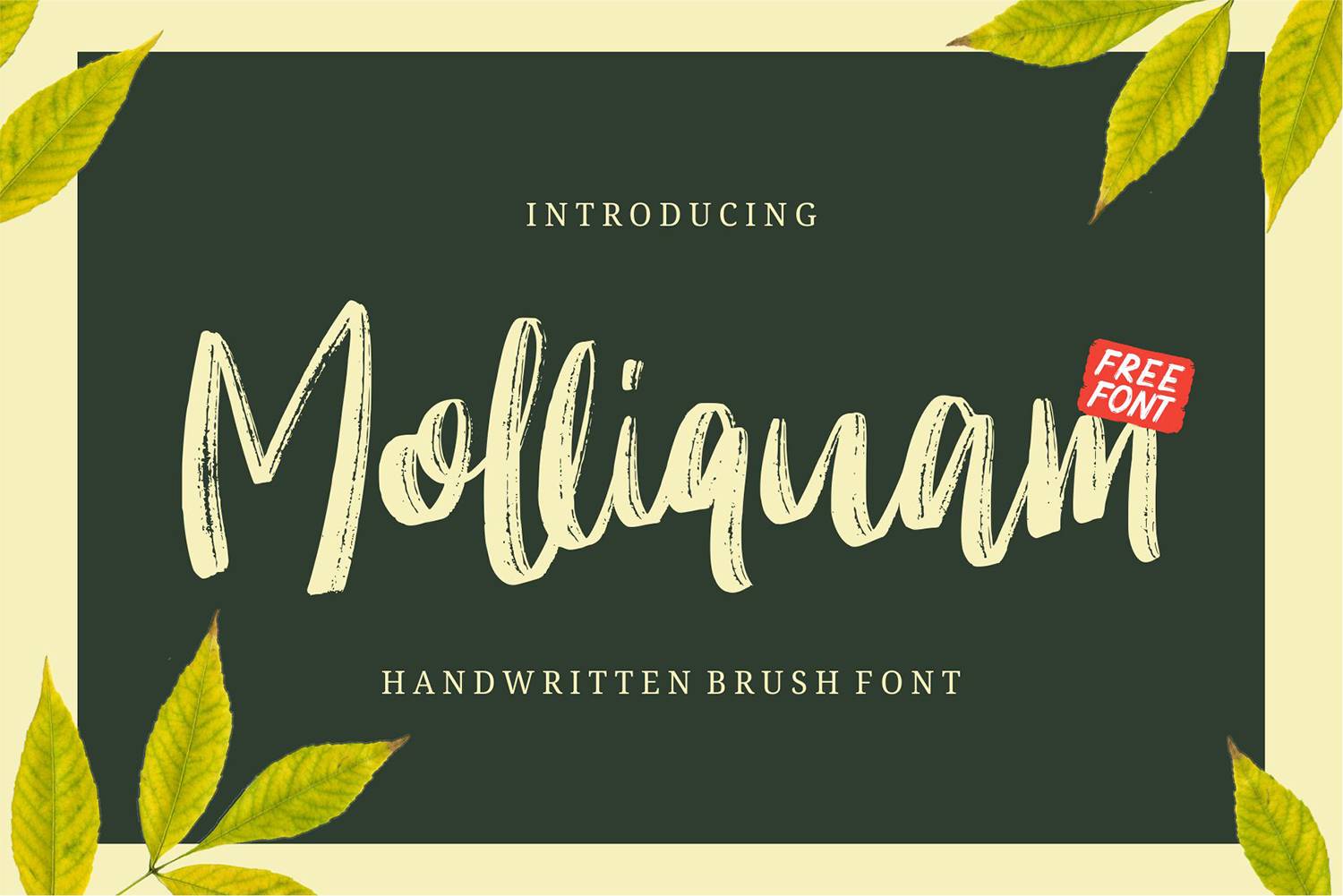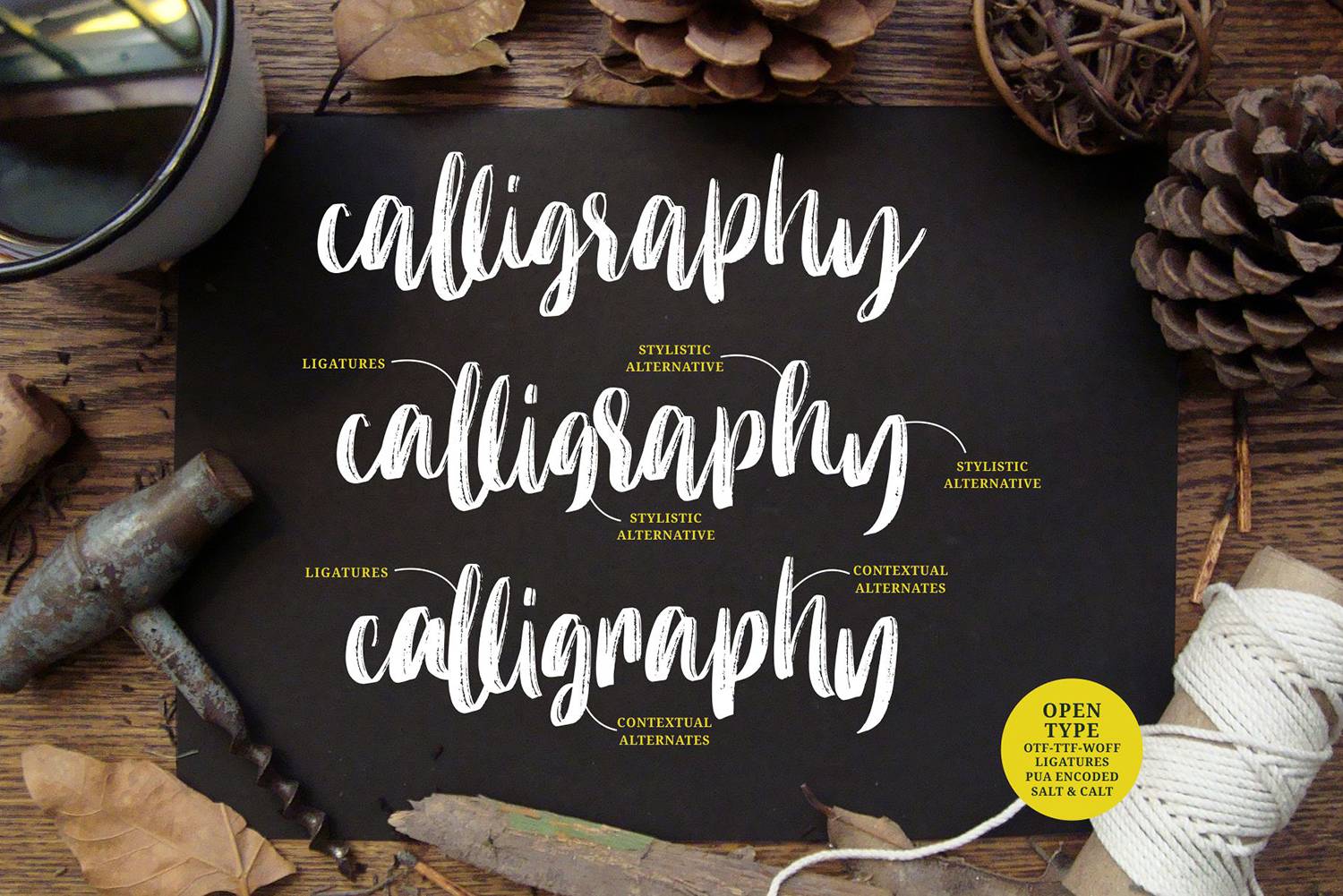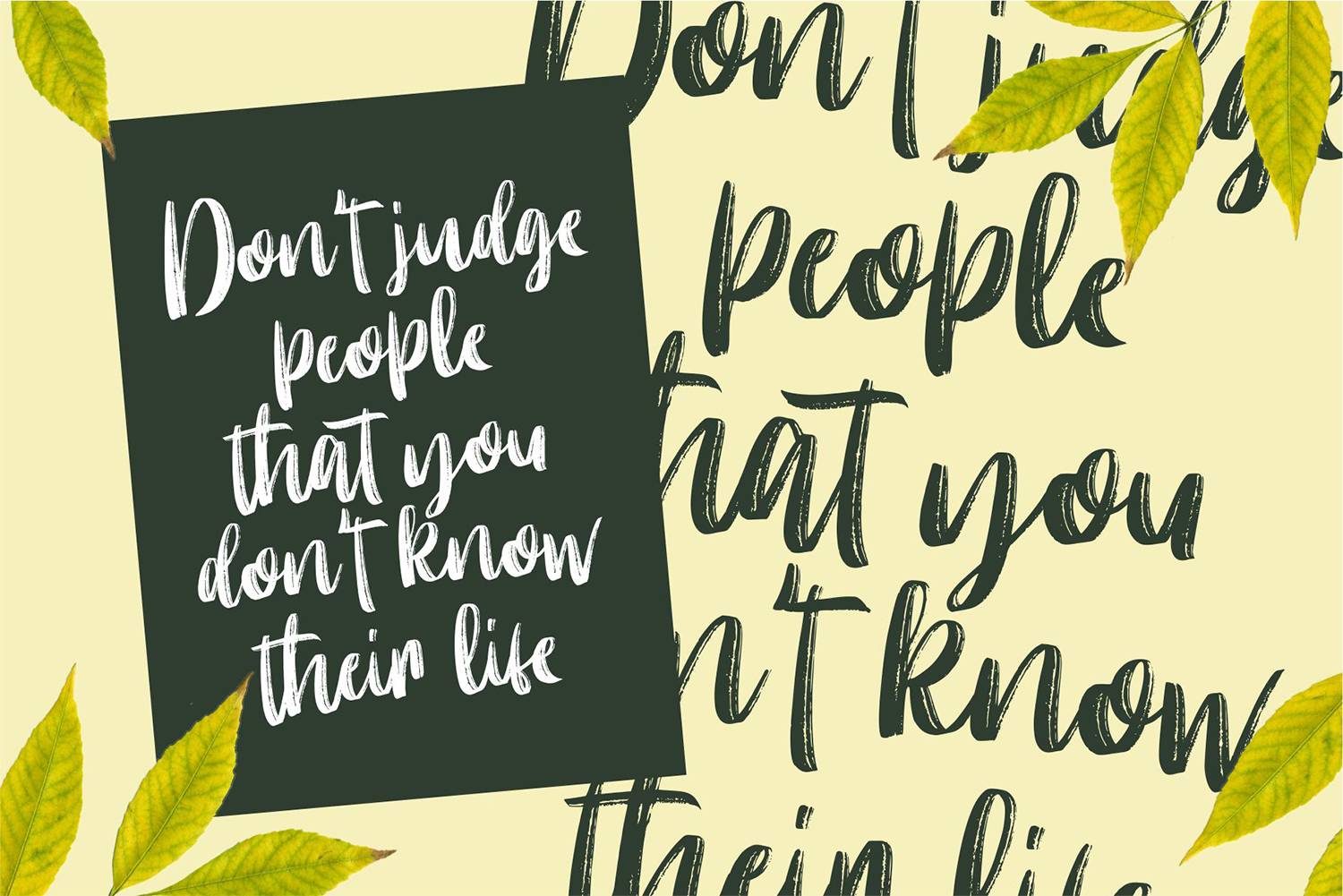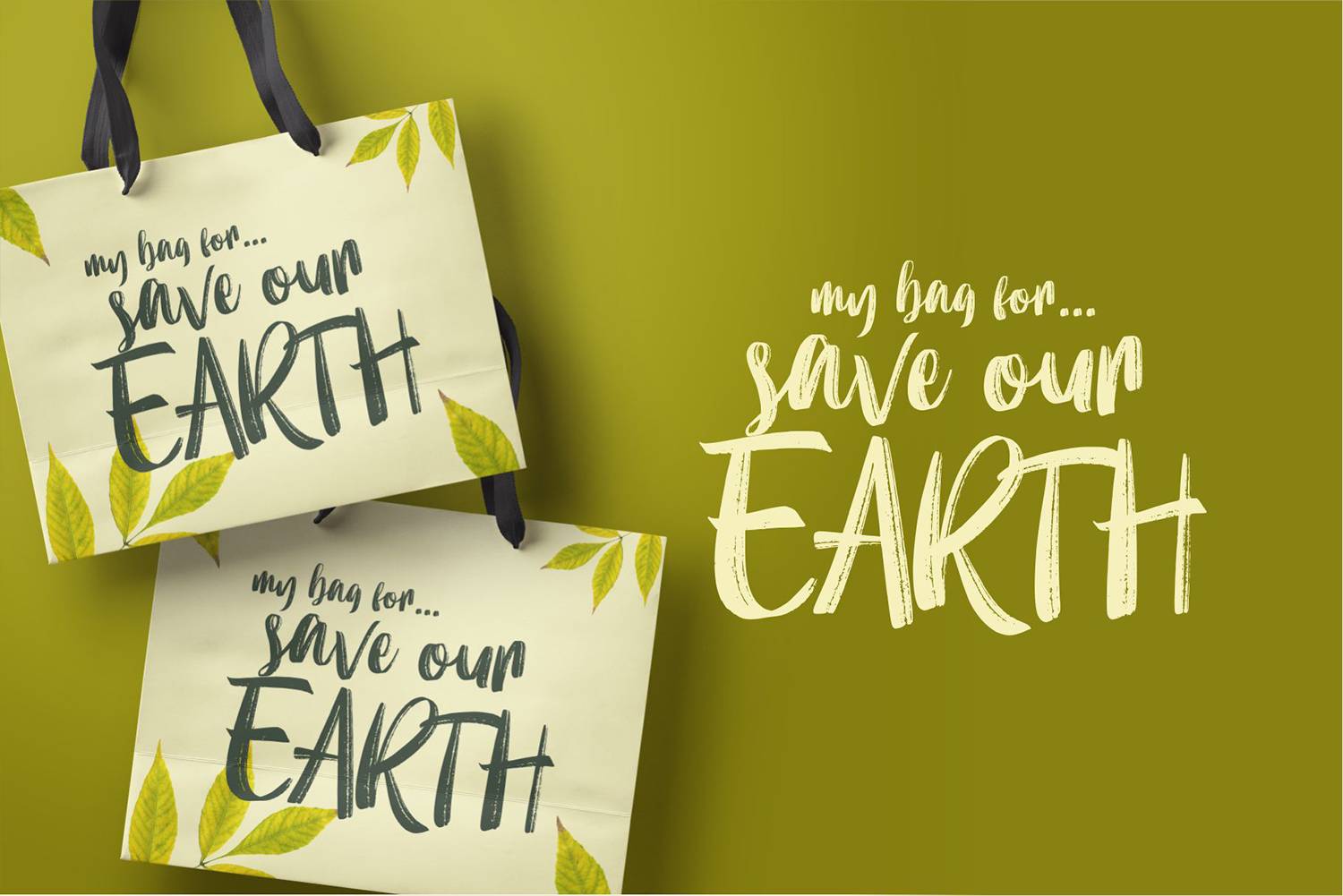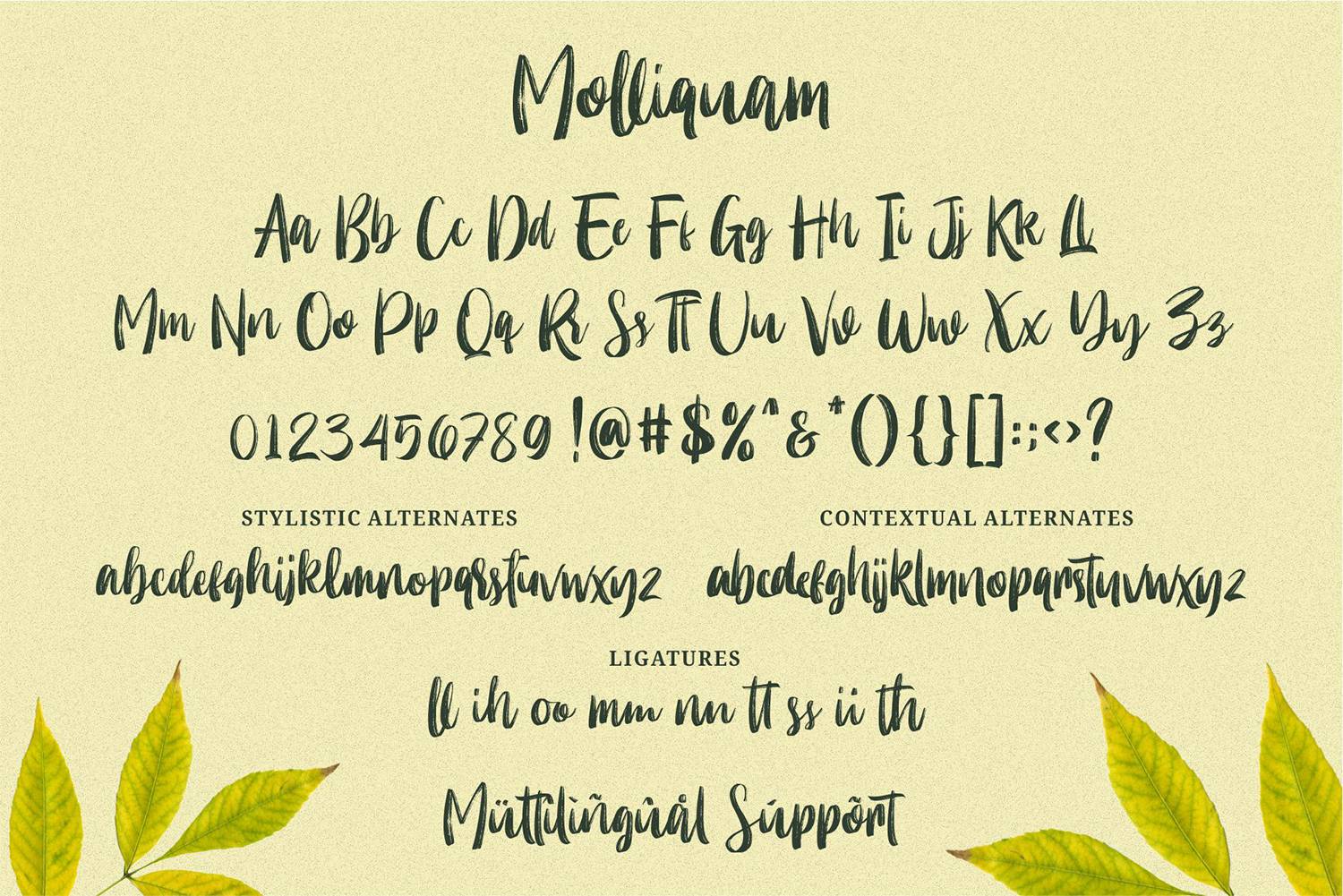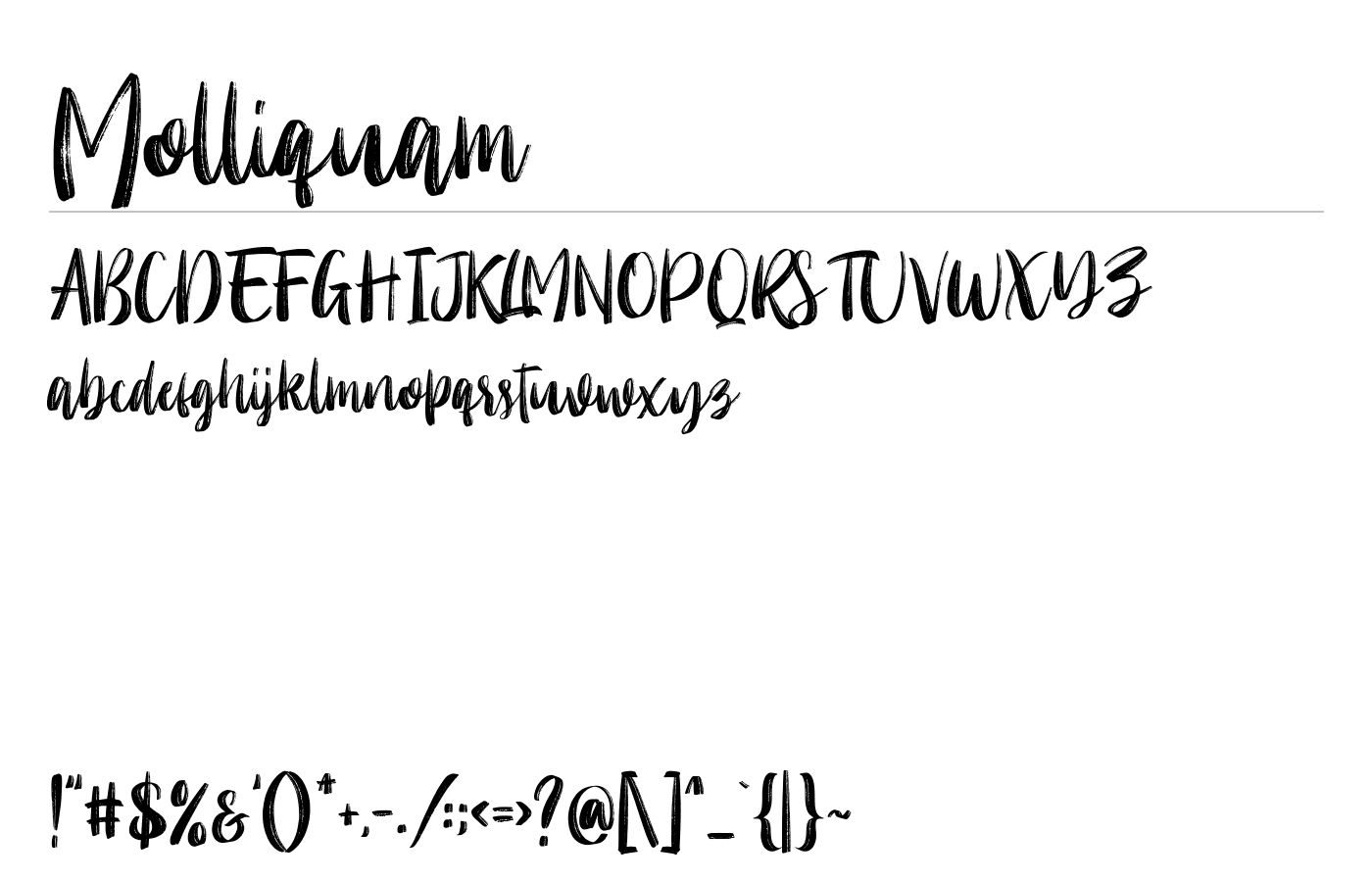
Molliquam is a playful and expressive handwritten script font with a textured, brush-like appearance that adds a casual, creative feel. It features tall, narrow letterforms with lively strokes and a slightly uneven baseline, lending an energetic and personal touch. This font works well for branding, invitations, and artistic projects where a friendly, dynamic, and informal vibe is desired.
Molliquam Font
About Molliquam Font
| Font family | Molliquam Font |